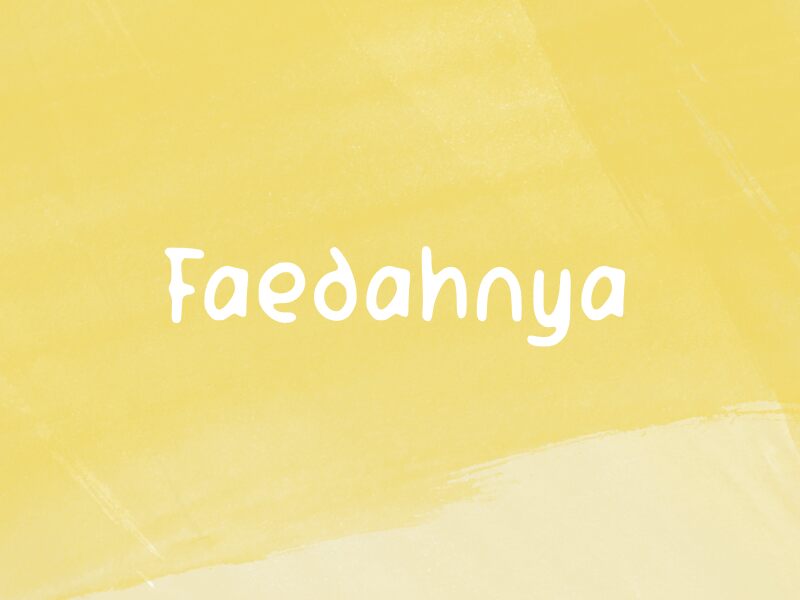
Faedahnya
Faedahnya font, designed by wep, captivates with its organic, handwritten charm. This free font exudes a playful yet sophisticated elegance, featuring fluid strokes and delightful curves. Its distinct personal touch makes it perfect for projects that seek warmth and authenticity.
Ideal for branding, invitations, and personal blogs, the Faedahnya font enhances visual storytelling with its inviting aesthetic. Whether creating logos or crafting heartfelt messages, designers can download Faedahnya to infuse creativity into their work effortlessly.